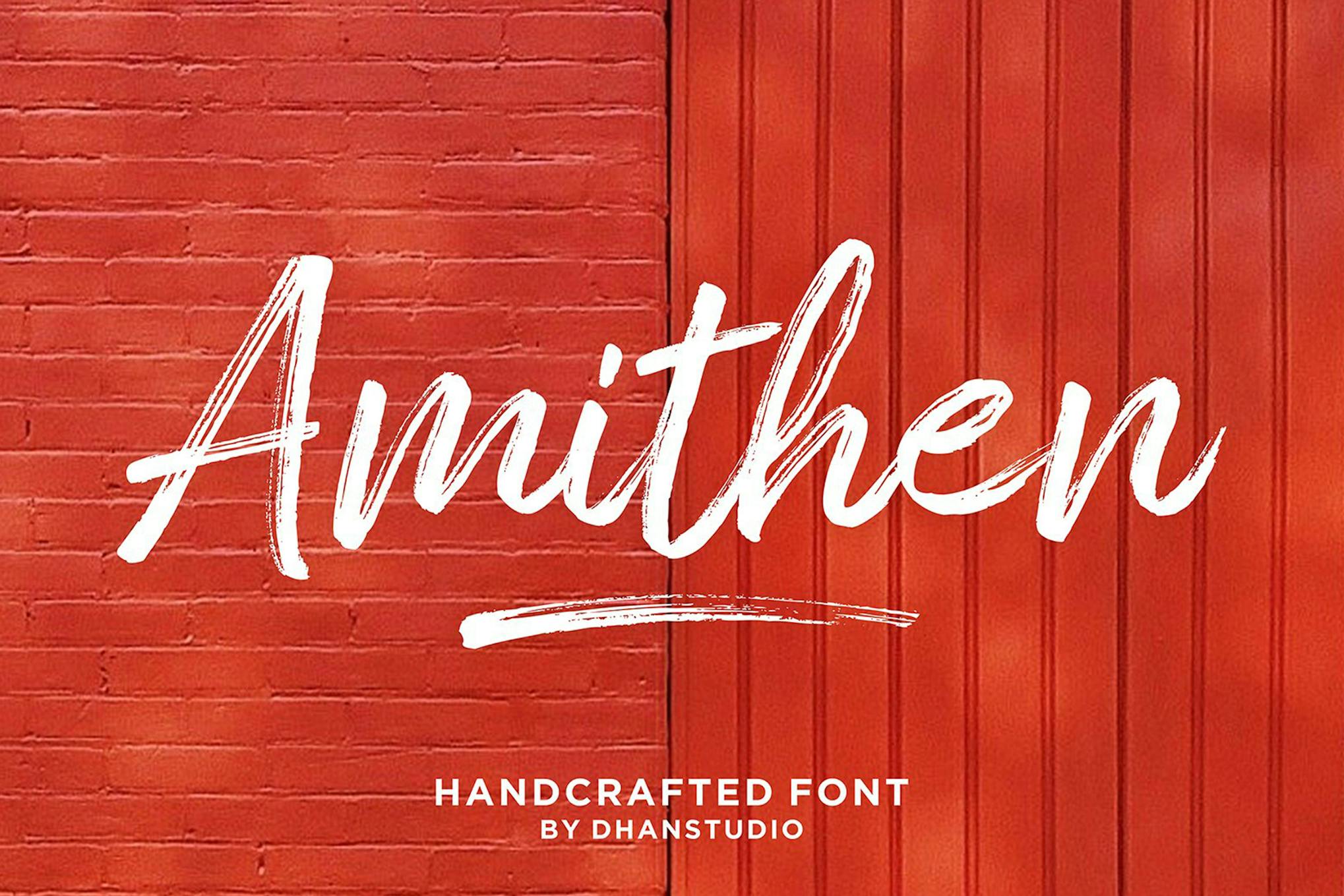
Amithen Brush Font
Amithen Brush Font is ideal for artistic logo design, creative branding projects, hand-lettered quotes, expressive poster art, social media graphics, craft packaging design, bohemian wedding invitations, artistic book covers, and authentic handwritten typography applications.
What makes Amithen Brush Font exciting is its graceful fluidity that captures the natural rhythm and organic beauty of skilled brush lettering with remarkable authenticity. This elegant typeface features smooth paint flows, expressive stroke variations, and spontaneous letterforms that bring warmth and artistic sophistication to digital designs. The font's refined imperfections and humanistic character create emotional resonance and personal connection that audiences crave, making it perfect for brands that want to communicate creativity, authenticity, and artisanal quality through typography that feels genuinely handcrafted.
Amithen Brush Font family includes multiple artistic variations: Regular, Bold, Light, Condensed, Extended, and Textured versions. Each style maintains the distinctive brush aesthetic while offering different stroke weights and artistic intensities, providing designers with comprehensive tools for creating cohesive yet expressive typographic systems and authentic hand-lettered design applications.
Creative professionals choose Amithen Brush Font for its ability to convey creativity and human touch through typography alone. The flowing brush strokes and organic rhythm create visual movement that draws viewers into the message. Its expressive character works beautifully across diverse applications from intimate product labels to large-scale artistic installations.
Whether used for artisanal product branding or contemporary creative campaigns, Amithen Brush Font consistently delivers authentic brush typography that resonates with audiences seeking genuine artistic expression, creative sophistication, and the timeless appeal of handcrafted design elements.